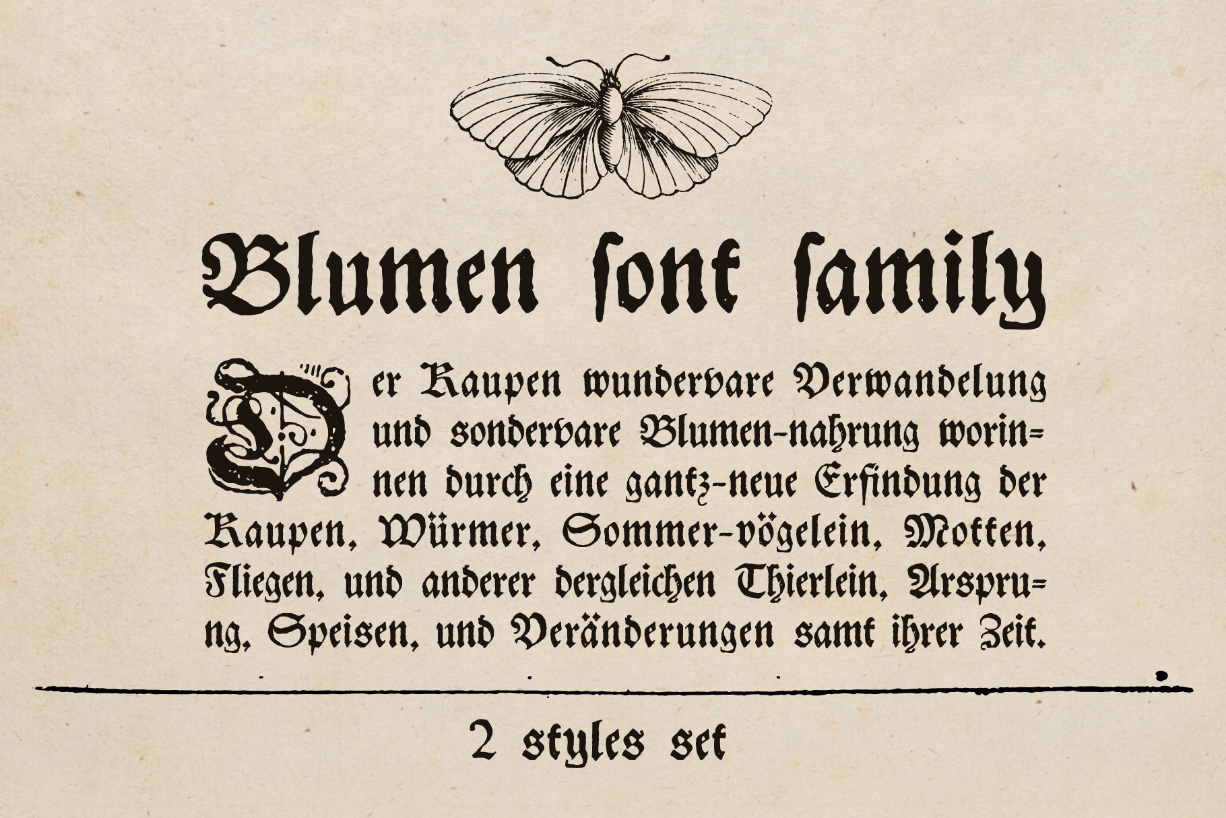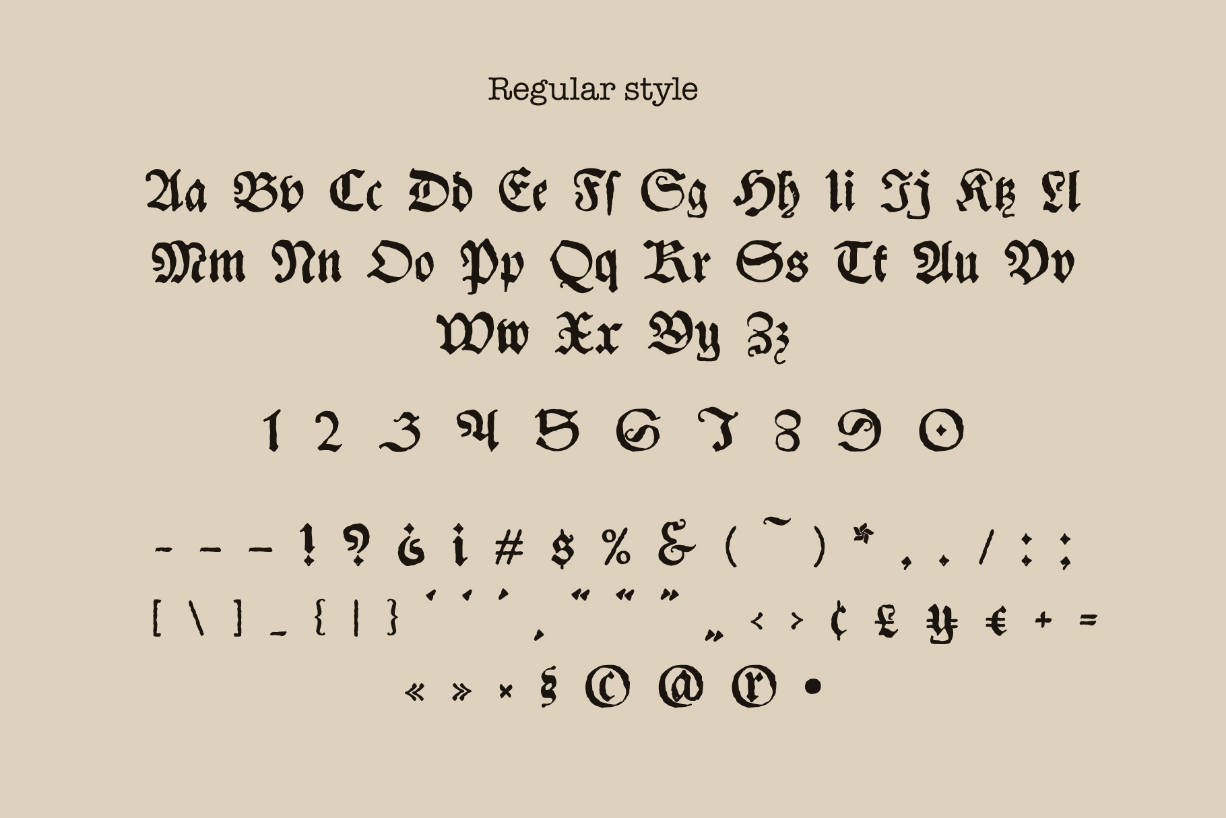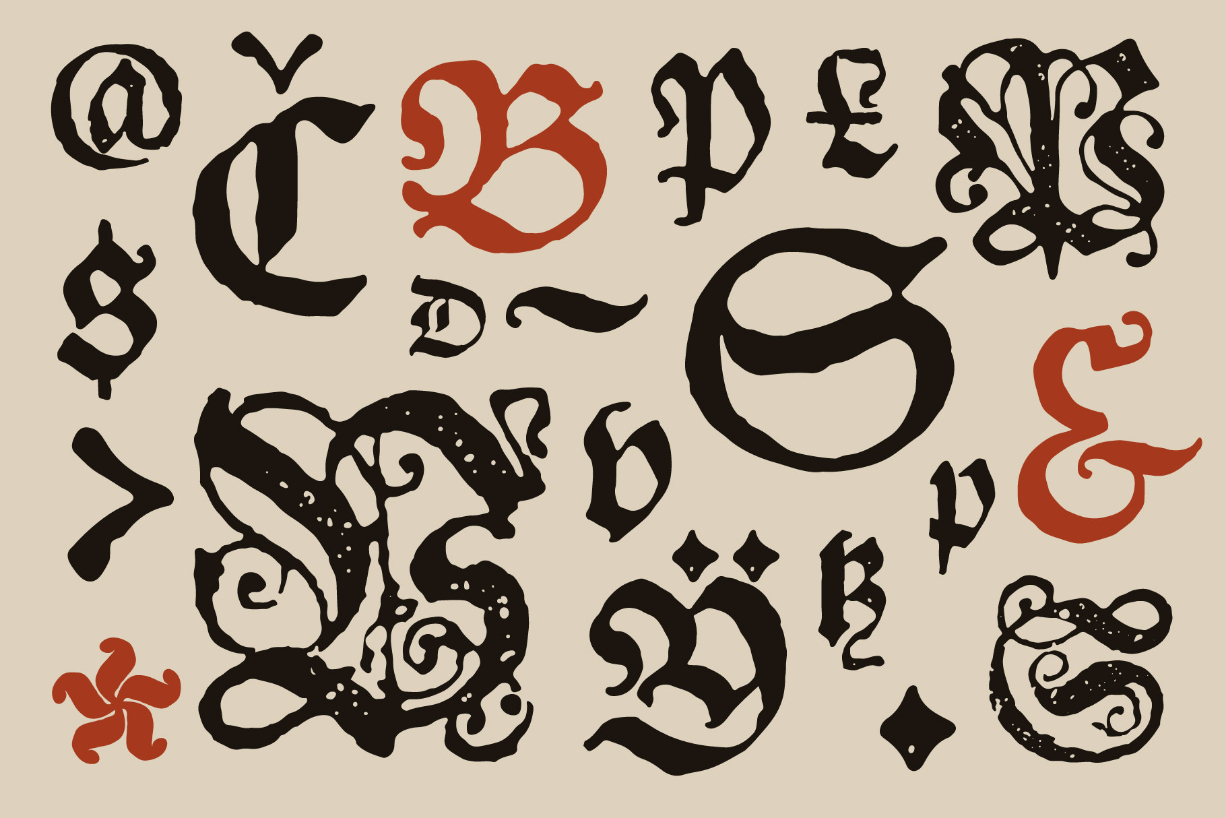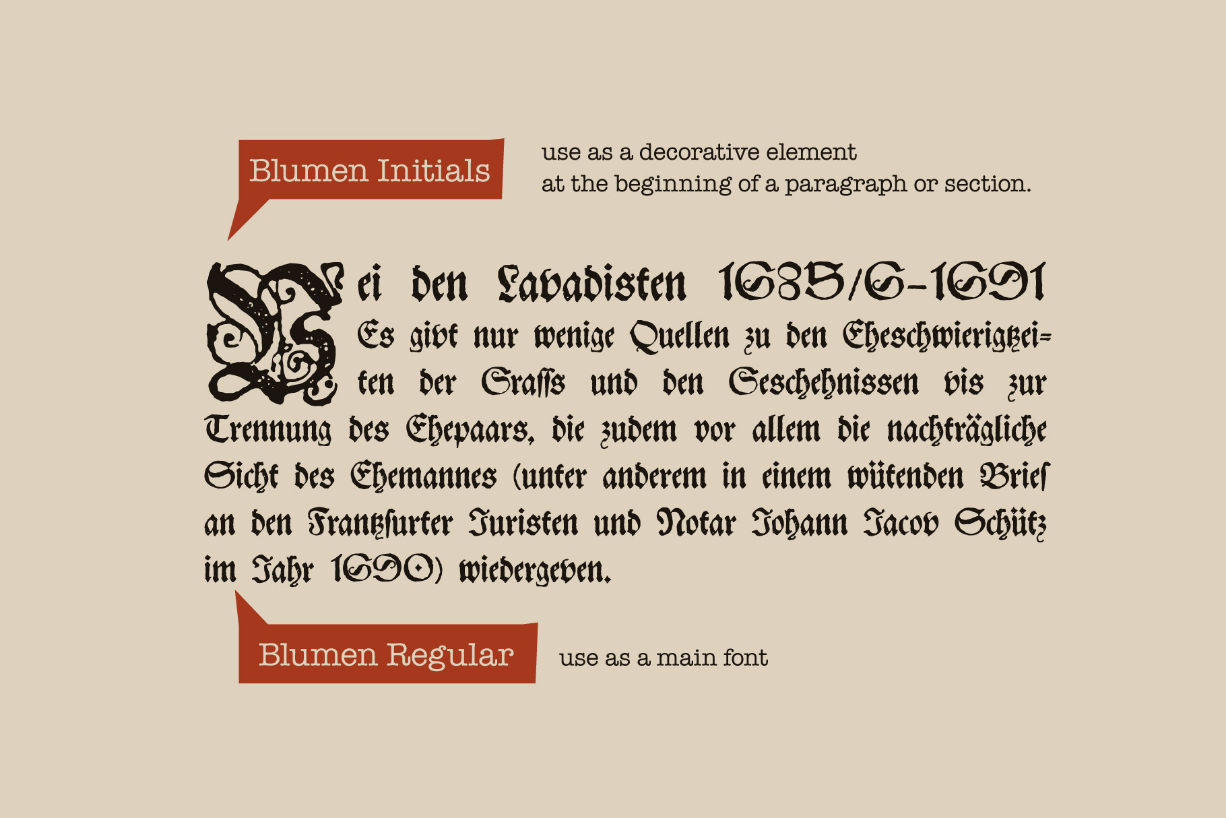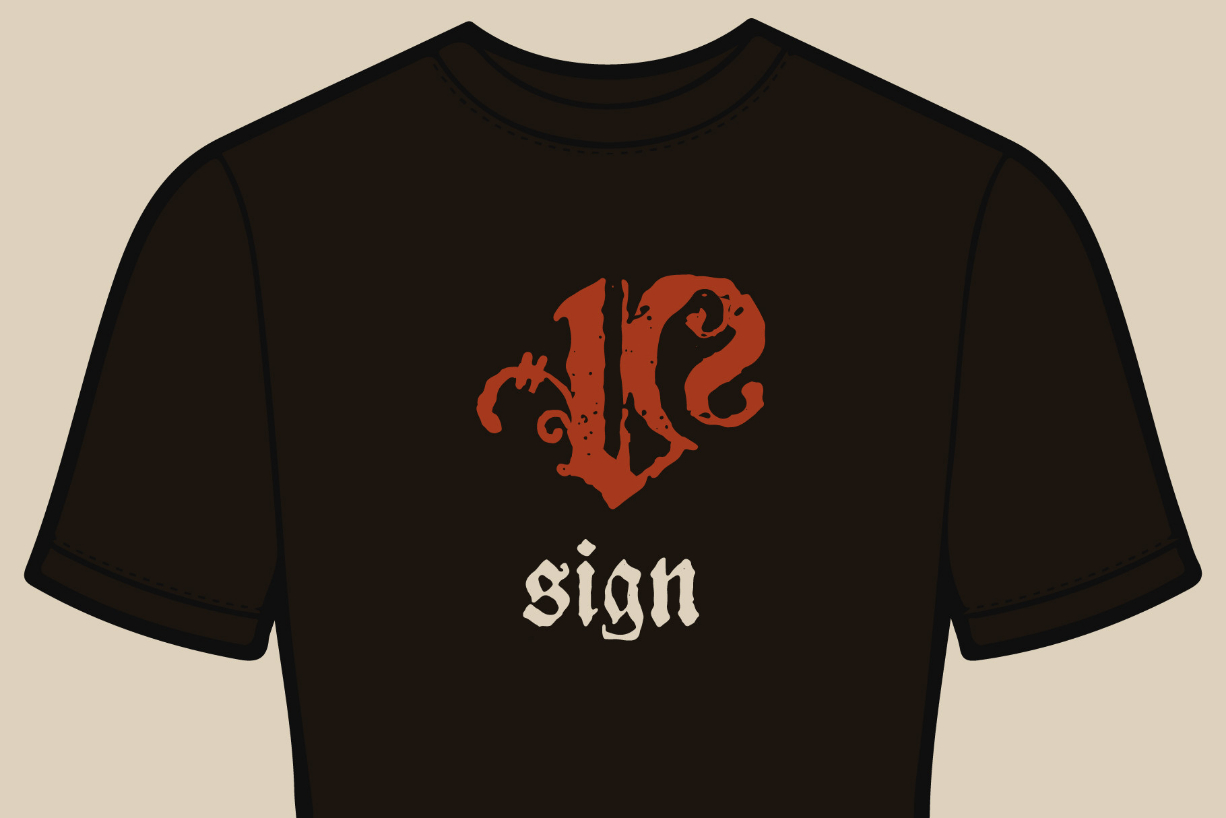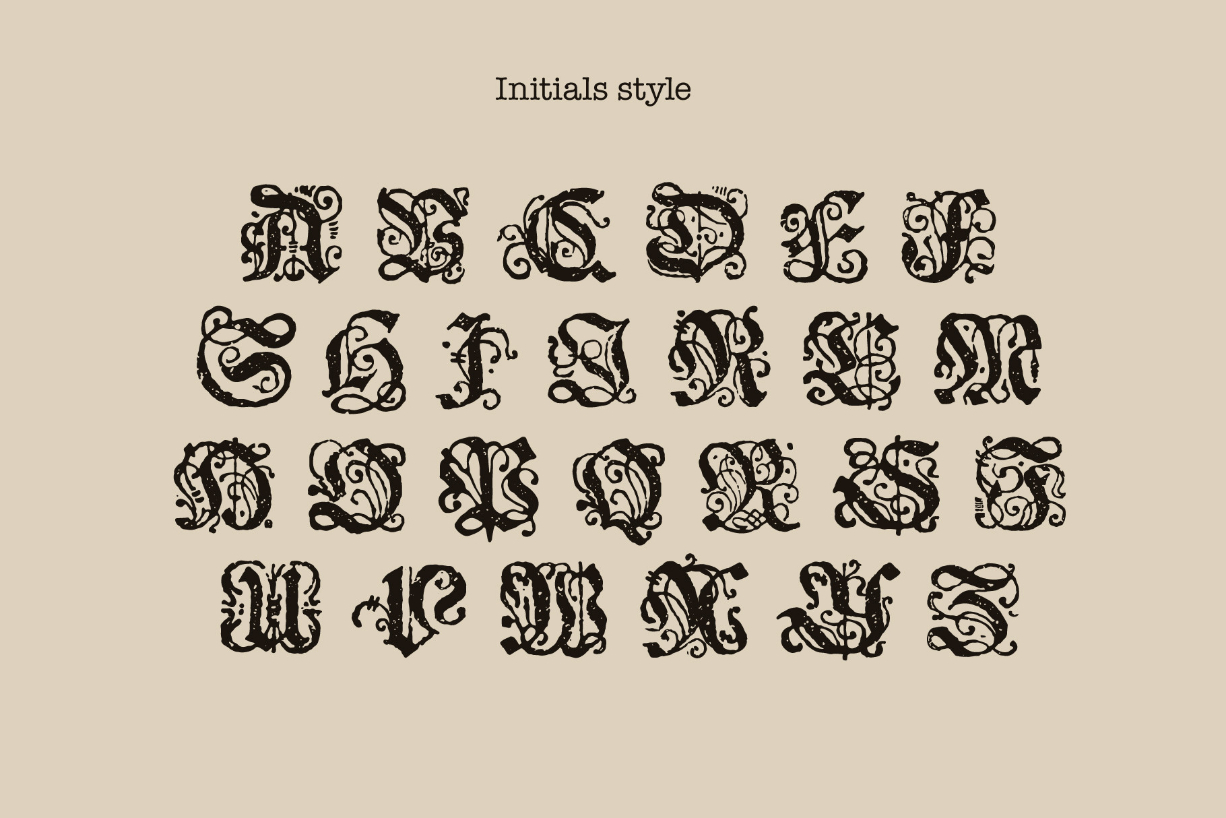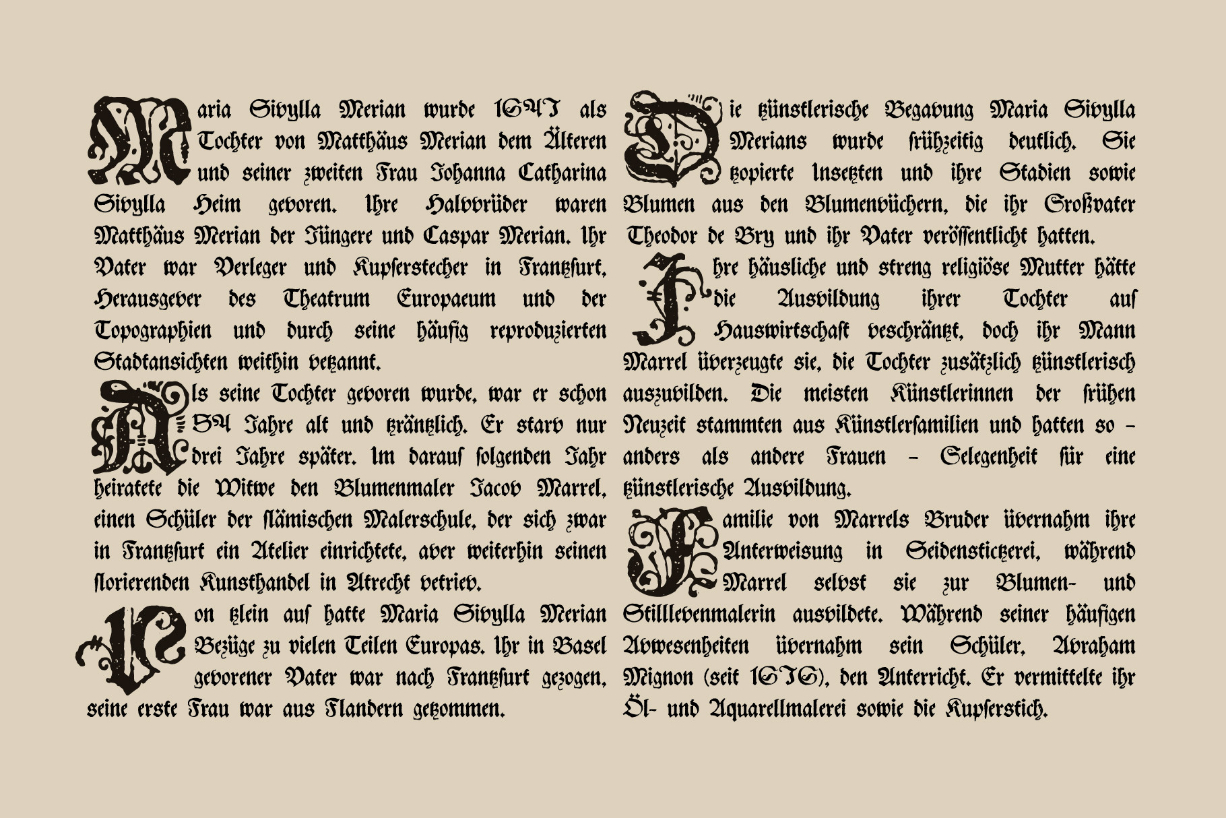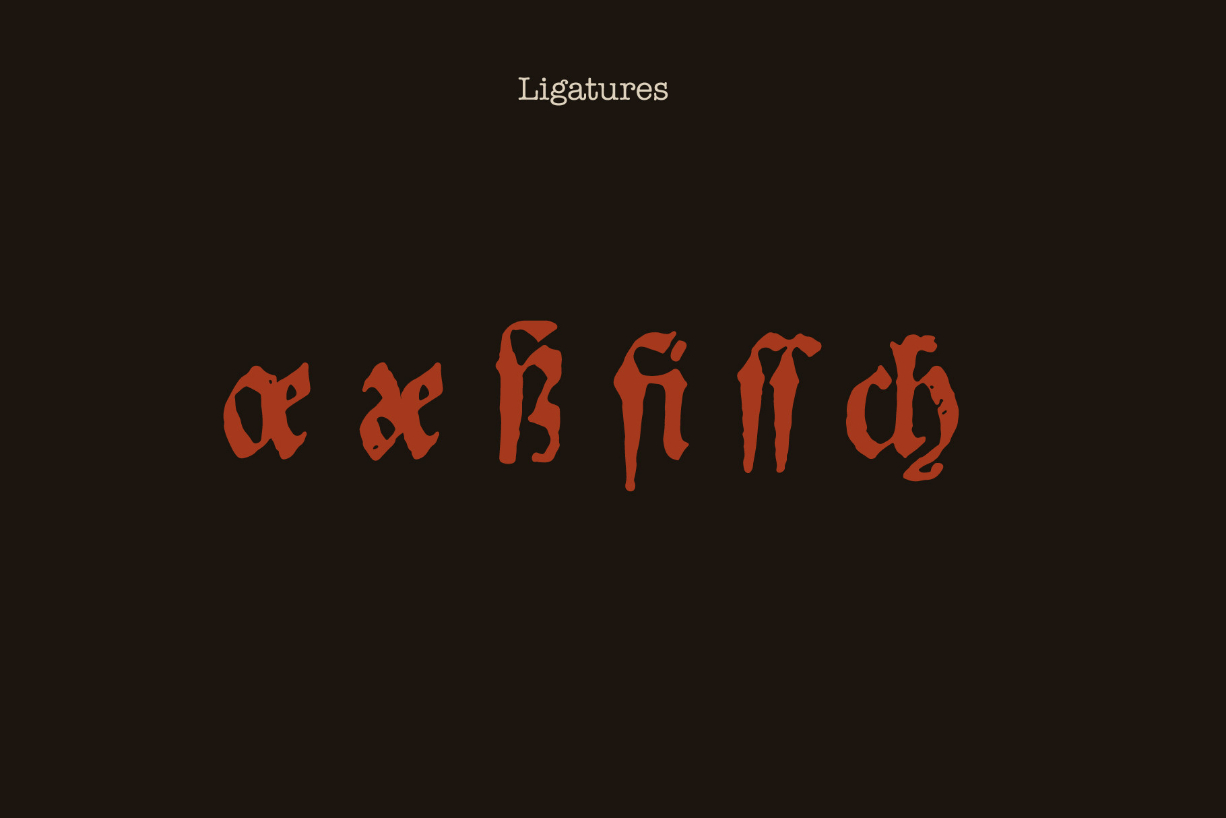
Blumen Font
About Blumen Font
Experience the power and elegance of a classic blackletter font. This striking typeface features intricate and ornate details, with sharp angles and dramatic strokes that create a bold and commanding presence. Perfect for adding a touch of sophistication and drama to any design project, from invitations to logos to book covers.